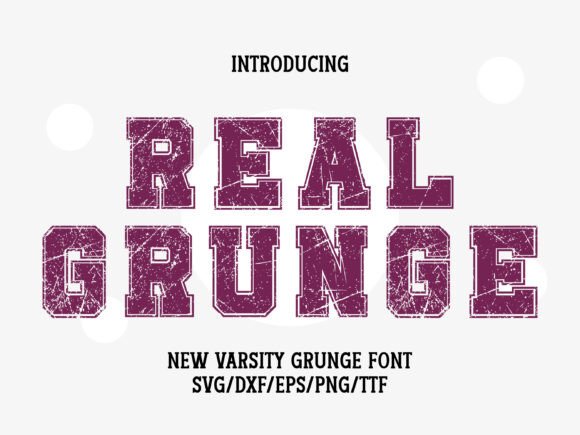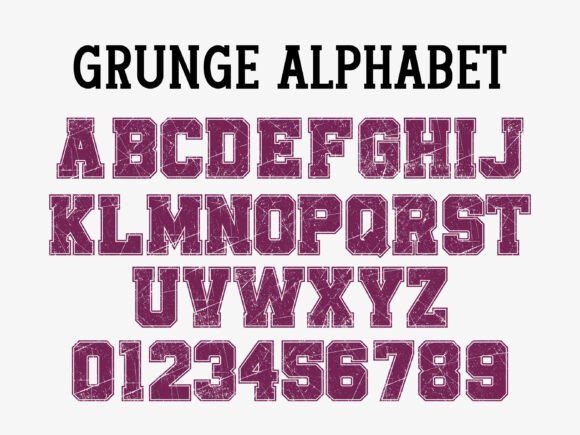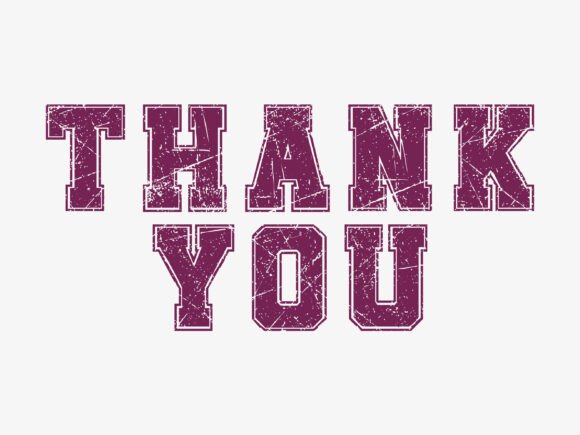
Real Grunge Font
About the Real Grunge Font
Introducing the Real Grunge Font, a beautifully crafted typeface designed to elevate your creative projects. Real Grunge is a vintage display font with a distressed, edgy style. Its rough, textured lines give it a bold, unique look, making it more than just a typeface. Perfect for festive invitations, holiday cards, or any creative project, this font adds character and impact. Use it with confidence, and you’ll love the results!
Real Grunge excels in headlines, posters, and short impactful text on packaging or branding materials where its bold, rebellious personality shines. Avoid using it for body text or long paragraphs; the distressed texture can hinder readability. Its strong character is best suited for projects targeting a younger demographic or brands with a gritty, edgy aesthetic.
Pairing Real Grunge with a clean sans-serif like Helvetica Neue for body copy creates a strong contrast, balancing its rugged texture with sharp legibility. Alternatively, a classic serif like Garamond can add a touch of sophistication, softening its raw energy while maintaining visual interest. For a more cohesive, grunge-inspired look, consider pairing it with a complementary distressed font in a simpler style.
The font’s core personality is undeniably bold and rebellious, reflecting a raw and energetic vibe. It projects confidence and a sense of nonconformity, making it ideal for brands looking to convey a similar message.
Real Grunge Font Usage Examples
Real Grunge Font Example